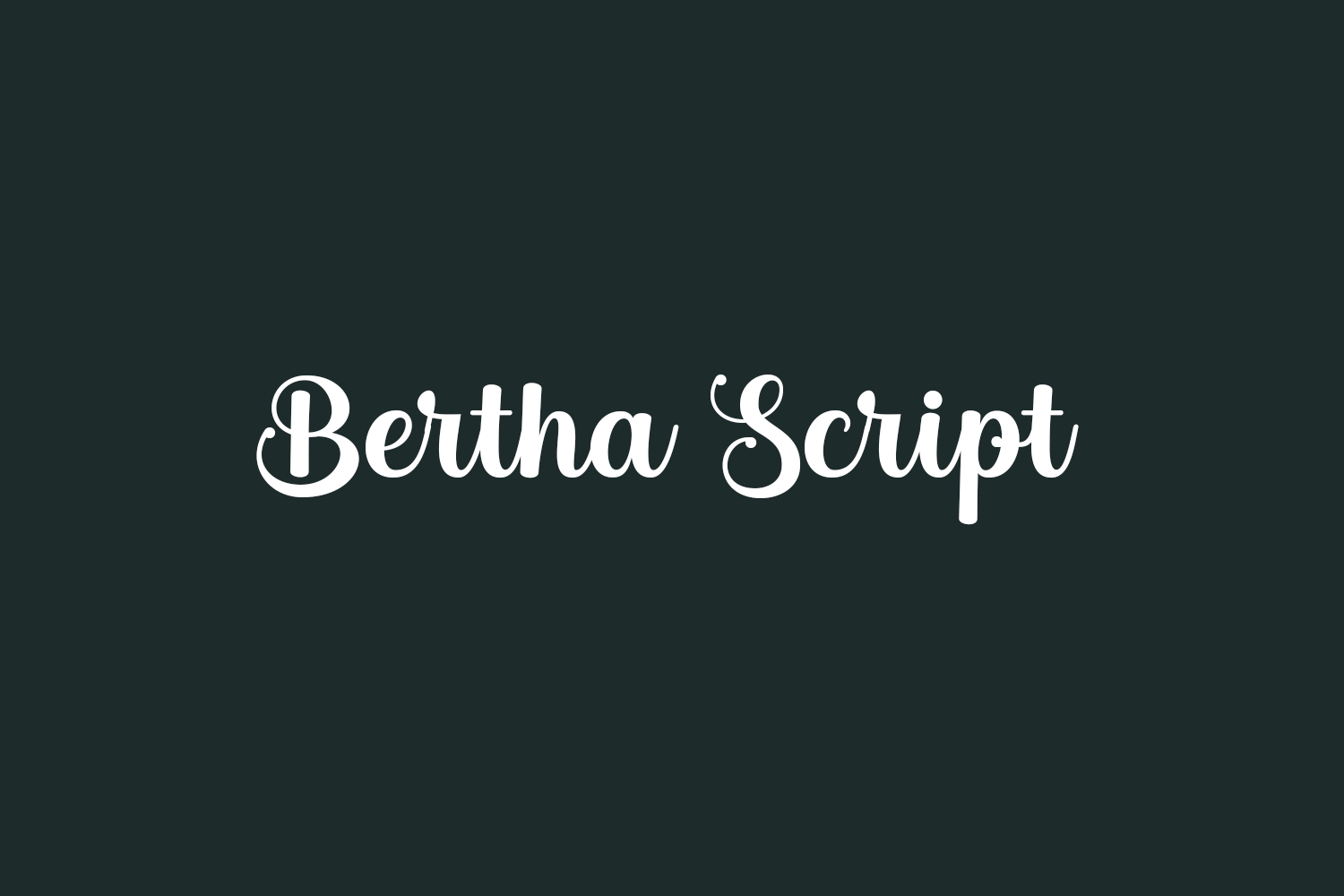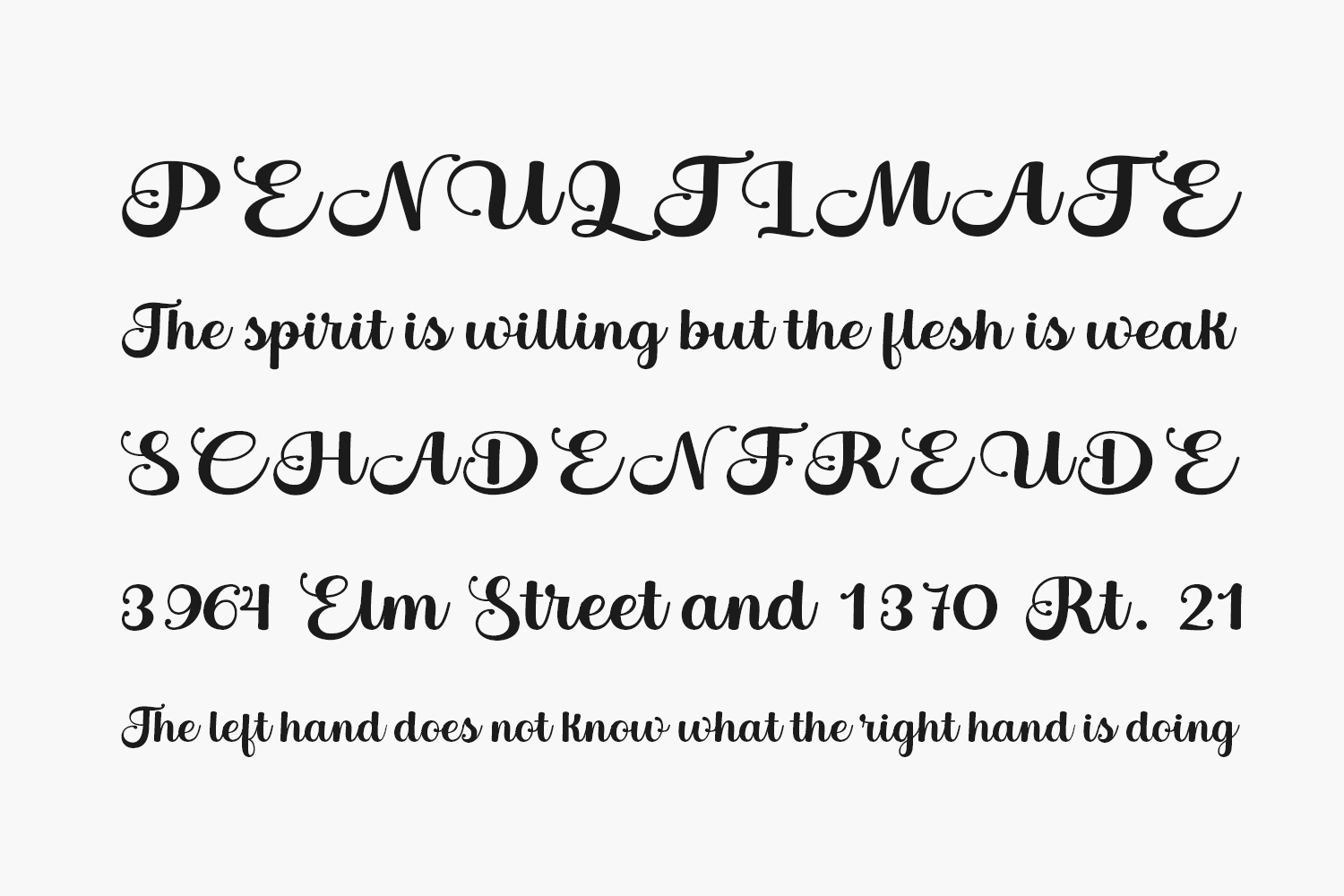
Bertha Script Free Font feels equally charming and elegant. It looks stunning on wedding invitations, thank you cards, quotes, greeting cards, logos, business cards and every other design which needs a handwritten touch. Bertha Script Free Font is free for personal use only. Please purchase the full version for commercial use.